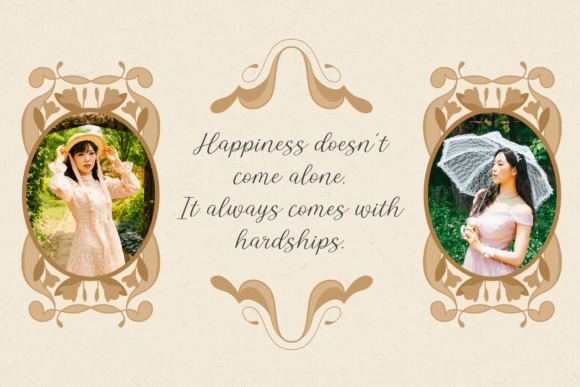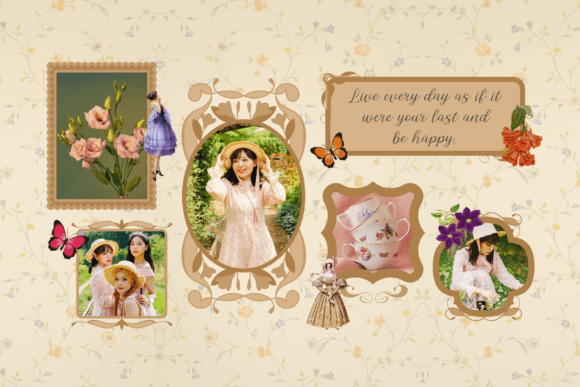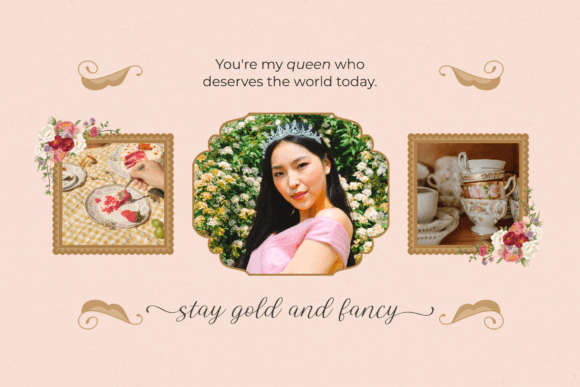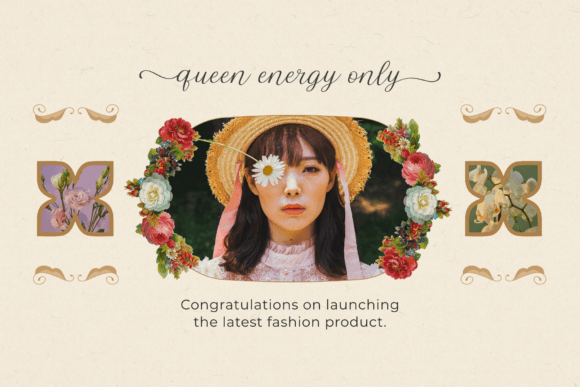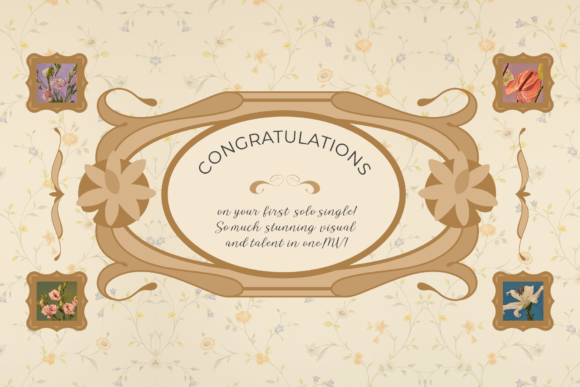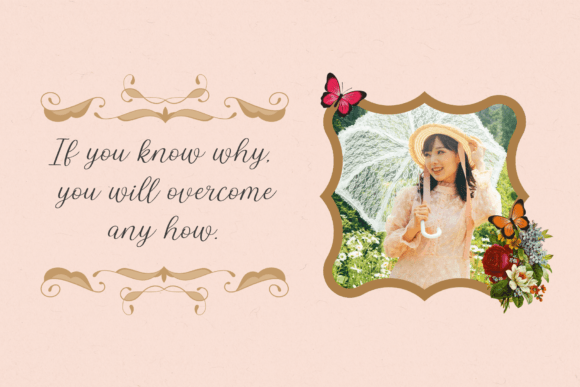
Introduction to Lambency Font
Have you ever been working on a creative project, pouring your heart and soul into every detail, only to find the perfect font eludes you? I’m sure we’ve all been there – scrolling through font libraries, searching for that elusive perfect fit. For designers, the right font can make all the difference between a good design and a great one. That’s why we’re excited to introduce you to the Lambency Font, a modern script font that’s about to revolutionize your design workflow.
This elegant and natural font is designed with the perfect balance of style and sophistication, making it a valuable resource for any design project. With its PUA encoded features, you can easily access all the glyphs and swashes, giving you endless possibilities for customization. Whether you’re working on a wedding invitation, a branding project, or a logo, the Lambency Font is sure to impress.
- Features a unique, modern design that adds a touch of elegance to any project
Honest Review: Lambency Font
I recently stumbled upon the Lambency Font, and I must say, it’s a great addition to any design resource collection. The Lambency Font is perfect for creative projects that require a unique and stylish touch. One of its standout features is the high-quality design that makes it ideal for both print and digital applications.
- Unique and stylish design
- High-quality typography
- Not suitable for projects requiring a more traditional font style
Overall, I’m impressed with the Lambency Font’s performance, and I would definitely recommend it to designers looking for a creative and high-quality font for their projects. While it may have some limitations, its unique design and versatility make it a valuable addition to any design resource collection.
The Lambency Font is ideal for use in creative projects, such as:
- Presentations and slideshows
- Print design and publishing